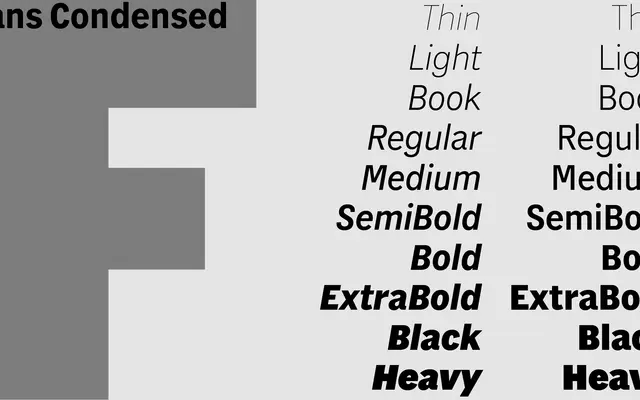
Foundation Sans Condensed
Foundation Sans Condensed specimen from A2-Type
The condensed subfamily of A2-Type's Foundation collection, drawing on historical grotesque specimens from America, France and Nordic countries across ten weights with matching italics.
Twenty styles span Thin to Heavy, each with a companion italic, giving designers a wide tonal range in a tight horizontal footprint. Foundation Sans Condensed sits within a broader 100-font suite that includes upright and wide sans cuts alongside serif and Didot variants. The revival brief, rooted in historical specimens from three distinct typographic traditions, gives the family more character than a purely contemporary condensed grotesque would carry.
Part of the Foundation suite of revival fonts drawn from historical American, French and Nordic specimens; the condensed cut follows the grotesque tradition of narrow, upright sans-serifs suited to tight settings and display work.